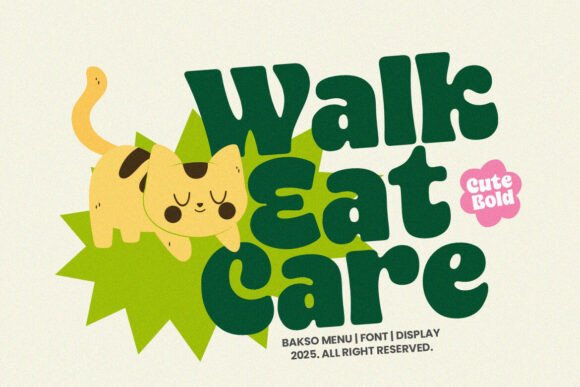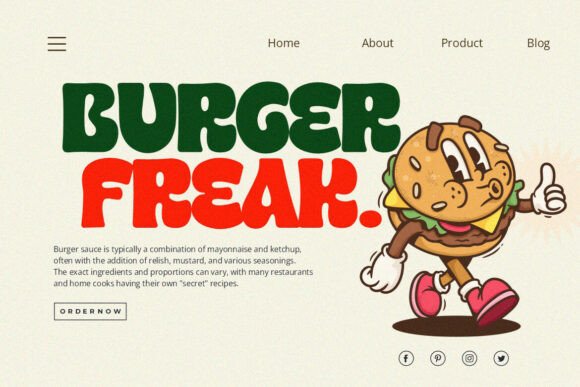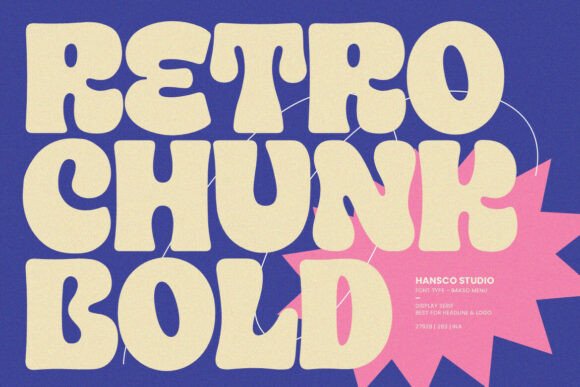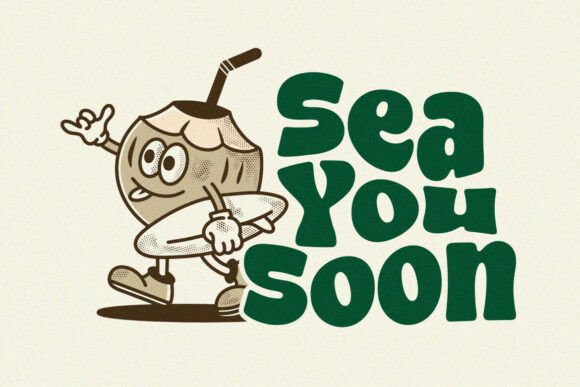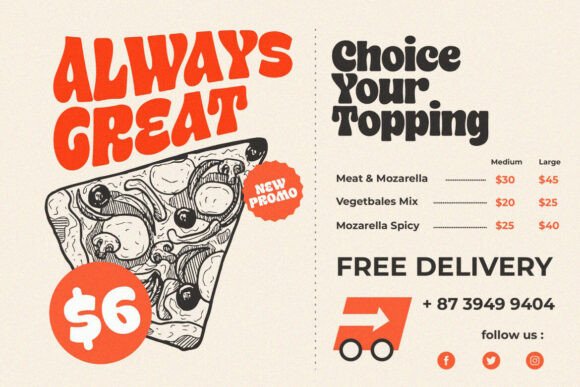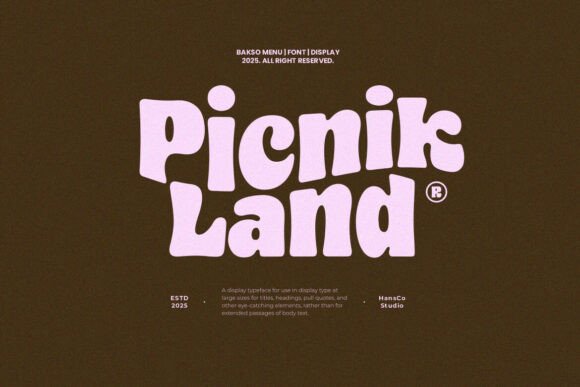
Bakso Menu Font: The Perfect Retro Bold Display Font for Your Creative Projects
Are you a designer or crafter looking for a unique and stylish font to add a touch of modern retro flair to your projects? Look no further than Bakso Menu Font! This retro bold display font style with rounded touch is perfect for a wide range of creative applications, from logotypes and stickers to packaging design and social media graphics.
What Makes Bakso Menu Font So Special?
Bakso Menu Font is a comprehensive font style that comes equipped with all the characters you need to create stunning designs. With a complete set of uppercase letters, lowercase letters, numbers, punctuation marks, and multi-lingual support, this font is ready to use in any project. Whether you’re working on a logo, brochure, or social media graphic, Bakso Menu Font has got you covered.
Key Features of Bakso Menu Font
- Retro Bold Display Font Style: Bakso Menu Font boasts a bold and eye-catching design that’s perfect for making a statement.
- Rounded Touch: The rounded edges of this font give it a friendly and approachable feel that’s perfect for brands looking to connect with their audience.
- Complete Character Set: With uppercase letters, lowercase letters, numbers, punctuation marks, and multi-lingual support, Bakso Menu Font has everything you need to create stunning designs.
Perfect for a Wide Range of Creative Projects
Bakso Menu Font is an incredibly versatile font that can be used in a wide range of creative projects, including:
- Logotype and Branding: Create a bold and eye-catching logo that makes a statement with Bakso Menu Font.
- Stickers and Packaging Design: Add a touch of modern retro flair to your stickers and packaging design with this unique font.
- Social Media Graphics: Create eye-catching social media graphics for YouTube, Instagram, and other platforms with Bakso Menu Font.
- Web Design: Add a touch of elegance and sophistication to your website with this beautiful font.
Why Choose Bakso Menu Font?
With so many fonts to choose from, why should you choose Bakso Menu Font? Here are just a few reasons:
- Unique and Stylish Design: Bakso Menu Font boasts a unique and stylish design that’s sure to make your projects stand out.
- Highly Versatile: This font can be used in a wide range of creative projects, from logotypes and stickers to social media graphics and web design.
- Easy to Use: With a complete character set and multi-lingual support, Bakso Menu Font is easy to use in any design project.